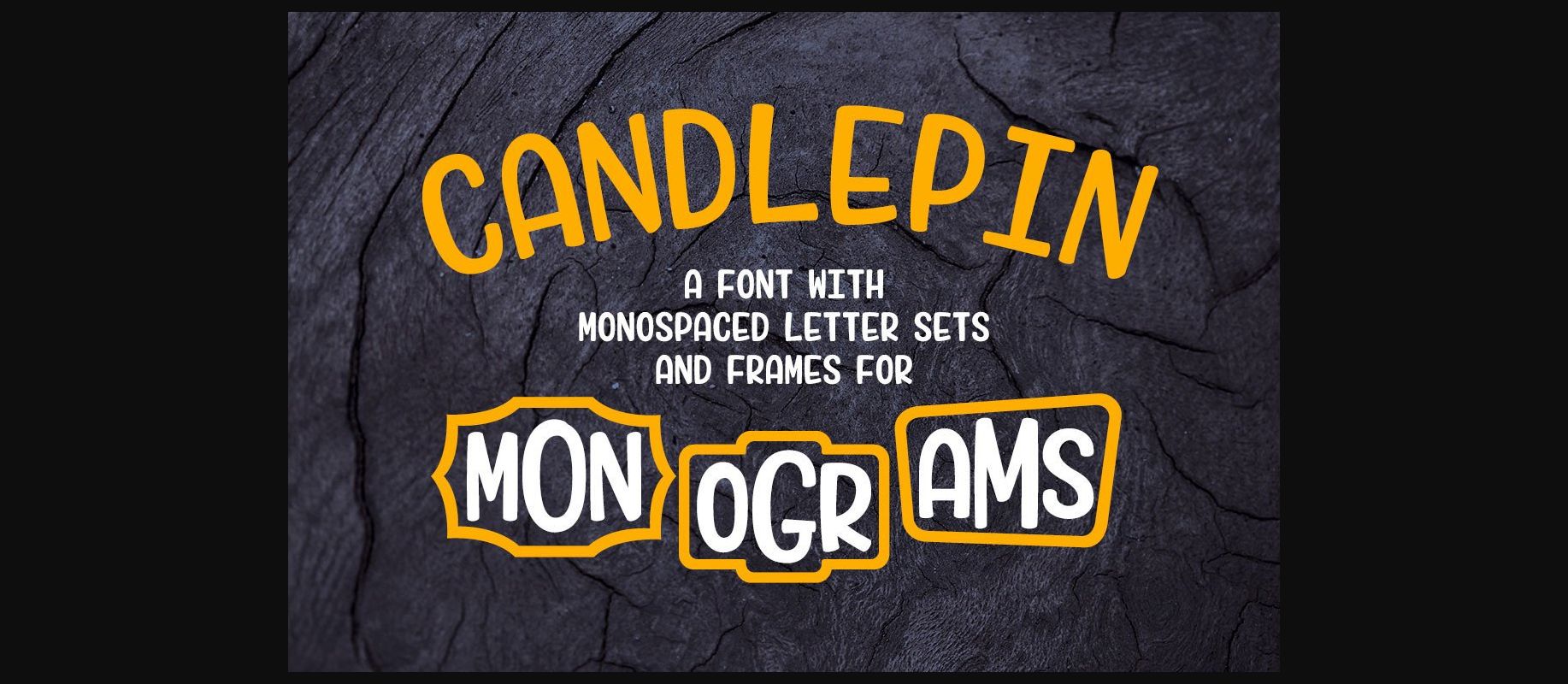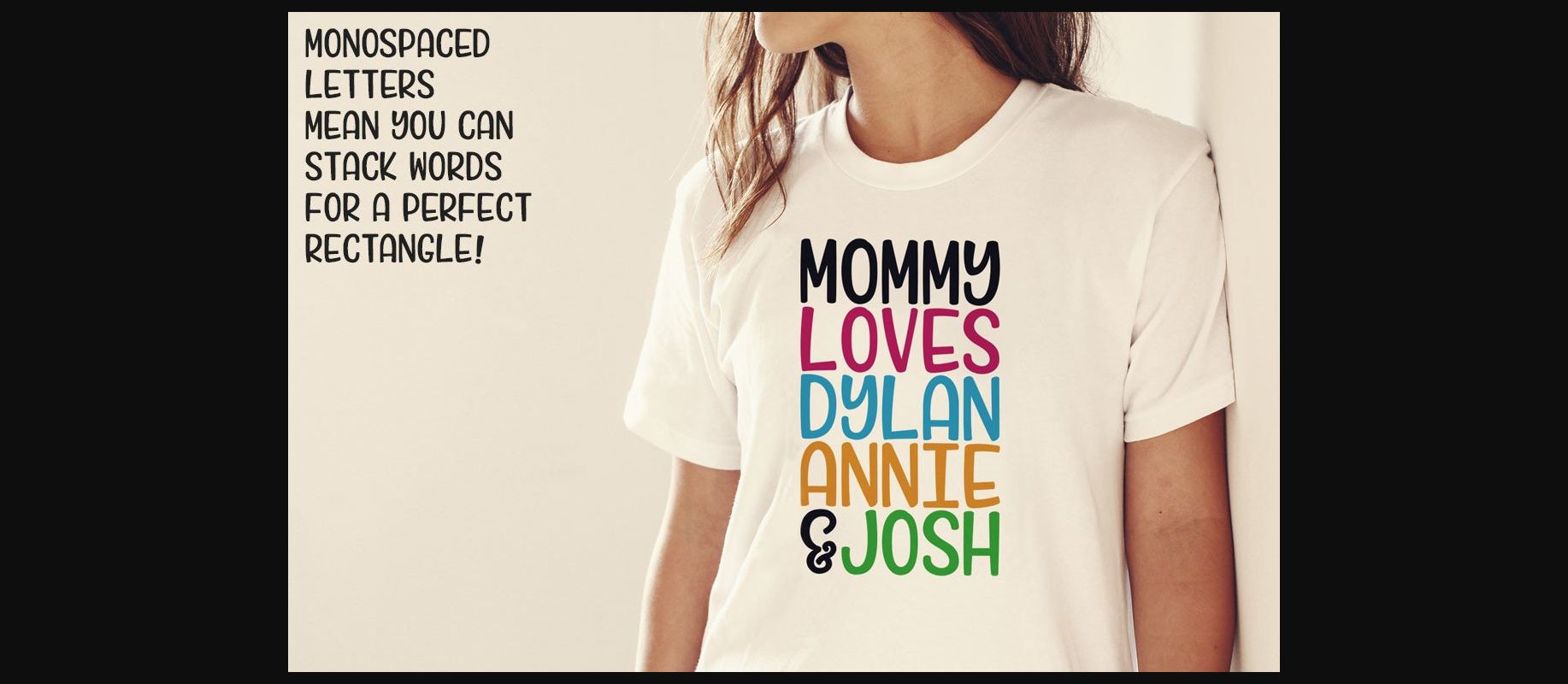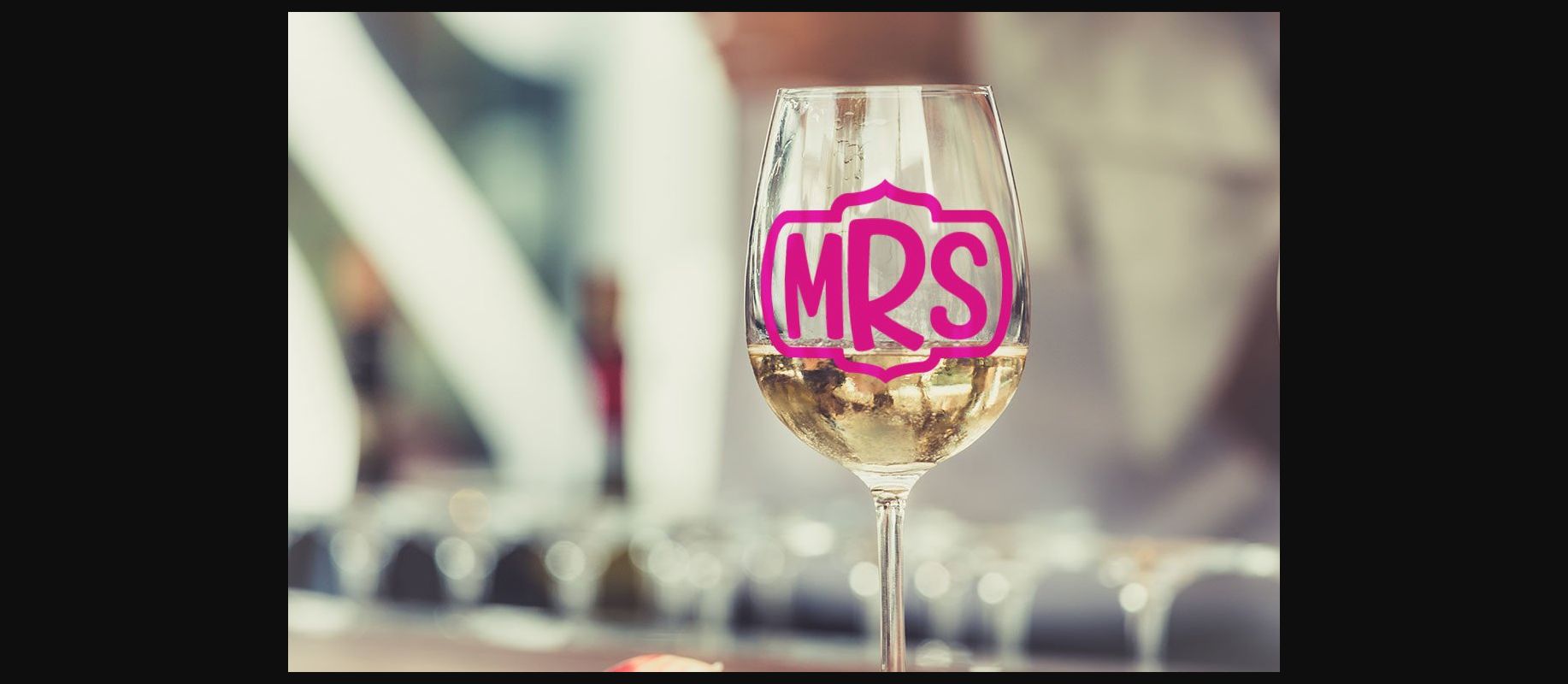
About Candlepin Monogram Font
Monograms are cool, but sometimes they can be a bit too formal. Too fancy. Dare I say it? A bit stuffy. I wanted to create a monogram font that was a little lighter-hearted and fun, and Candlepin was the result!
The font file contains two sets of capital letters: larger (uppercase A-Z) and smaller (lowercase a-z), as well as two sets of numbers: larger (0-9) and smaller (shift + 0-9). There are also 20 frame and graphic options mapped to every single other piece of puncutation I could find on the keyboard!
Creating a monogram is as easy as: [aBc — Just type the punctuation for the frame you want, then three letters in lowercase, uppercase, and lowercase. Boom, you have a cool and funky monogram, good for 1,001 household uses!
Monograms aside, Candlepin also serves as two full usable monospace alphabets. Need your letters to stack neatly vertically, but you’re bored with those typewriter-style fonts? Want a little fun in your spreadsheets? Making a fun word-search puzzle? Candlepin can do it all. ?
– 26 large letters, 26 small letters, 10 large numbers, 10 small numbers
– A large ampersand (mapped to the comma) and a period (mapped to the period)
– 18 full monogram frames, plus 2 left- and right-side graphics